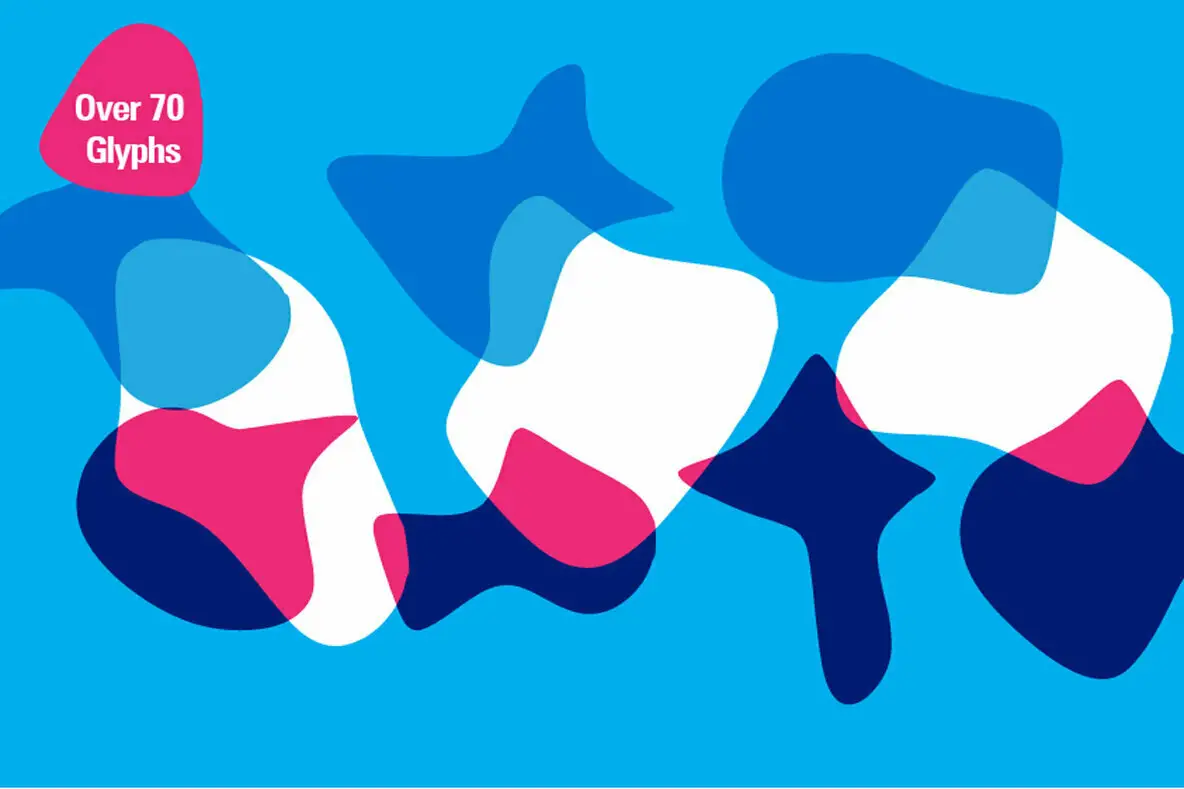
Random Blobs 2 Font Fontpath Sharpness and pointed style of random blobs 2, a remarkable set of glyph shapes for your crafting projects. An abstract, highly irregular font composed of amorphous, blob like shapes for each character, lacking traditional typographic features such as serifs, consistent stroke width, or clear letterforms.